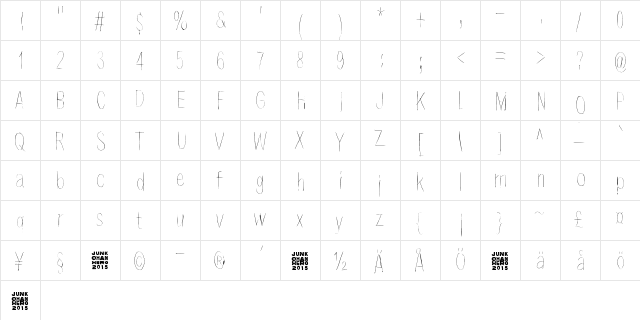
Because the night Regular
| Designer | junkohanhero |
Design Context for Because the night Typeface
Because the night offers clean, dependable letterforms without strong stylistic allegiance, making it a practical choice for designers who need flexibility.